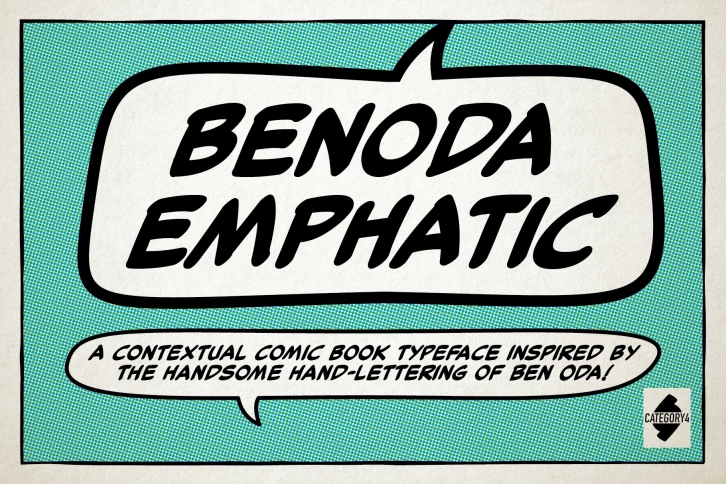
Benoda is a series of modern comic book typefaces inspired by the great Ben Oda, whose exquisite hand-lettering appears in comic books, comic strips, and more, published from the 1940's to the 1980's! These typefaces were all inspired by Oda's work at EC Comics during the early 1950’s, specifically in Two-Fisted Tales, and I hope you'll enjoy creating with them as much as I enjoyed creating them!
Our first offerings from the Benoda family are Benoda Text [for standard comics dialogue], Benoda Narrative [for caption boxes and thought balloons], and Benoda Emphatic [for emphasizing key words.] These three faces encompass the comic book lettering trinity of text, italic, and bold-italic, necessary for standard dialogue. For those of you looking for the "total package," all three are available in the Benoda Dialogue Bundle!
There’s often a lack of fluidity in a “hand lettering†font; each letter looking the same regardless of how many times you type it and screaming “mechanical reproduction,†so Benoda is packed with contextual alternates. If you don’t already know, contextual alternates cycle through multiple glyphs in most graphics programs, breaking up the repetition and imbuing the text with an even feel. The differences in Benoda are minor, but add just enough "randomness" to make the text flow as if it came directly from the tip of a Speedball. And the best part is, you don’t really have to do much to make the magic happen, just make sure your program works with contextual alternates and make sure they’re turned on!
Within each Benoda typeface are three alternate glyphs of A-Z, a-z, 0-9, and a few common punctuation marks. Additionally, there are a whole mess of international diacritics so you can create in almost any language using latin roman glyphs! And while Benoda is geared toward comics lettering, it works wherever you need a bit of hand-lettering!
So what is Benoda Emphatic? Benoda Emphatic is the typeface you call when you need to inject some emotional signposts in your text. Emphasizing key words helps with context and understanding and can lend action and meter to an otherwise dull block of text. "What do you think?" becomes "What do you think?" or "What do you think?"